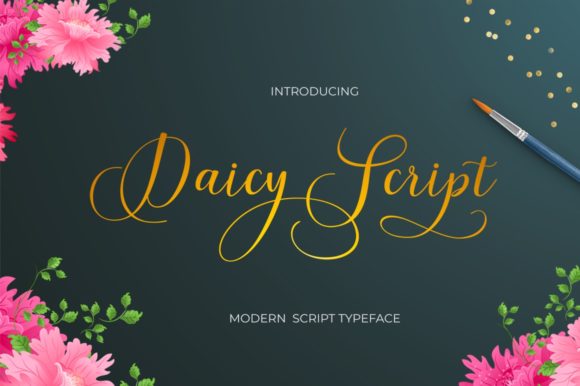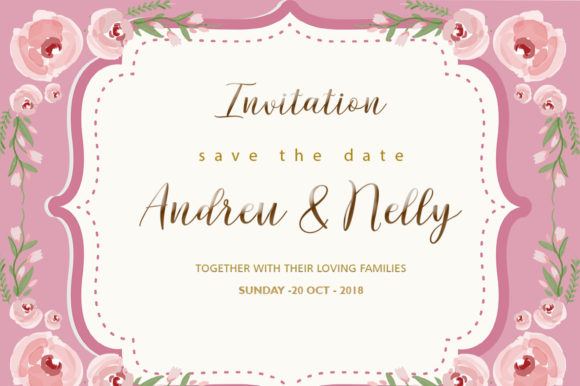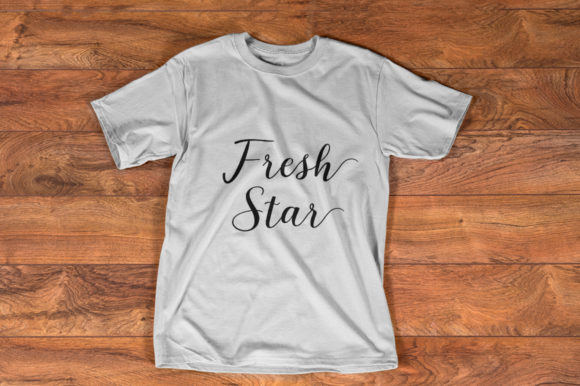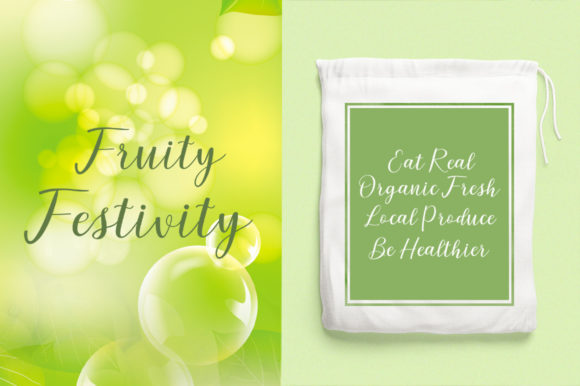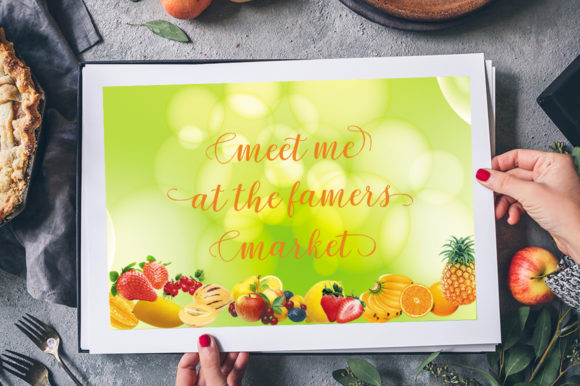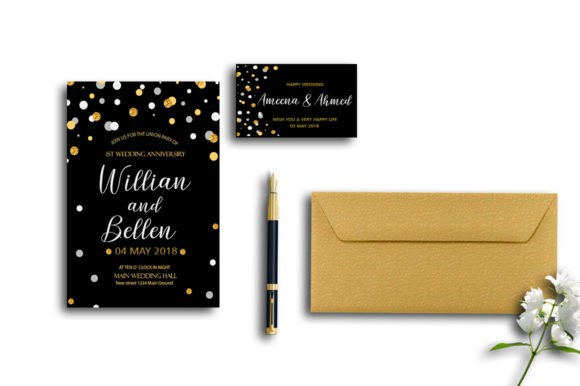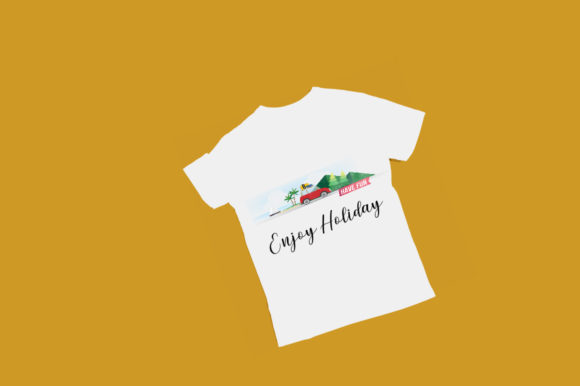
Daicy Script Font
About Daicy Script Font
The Daicy is a modern script font. It has an irregular baseline with a trendy and feminine feel.
It’s perfect for wedding invitations, thank you cards, quotes, greeting cards, logos, business cards and more.